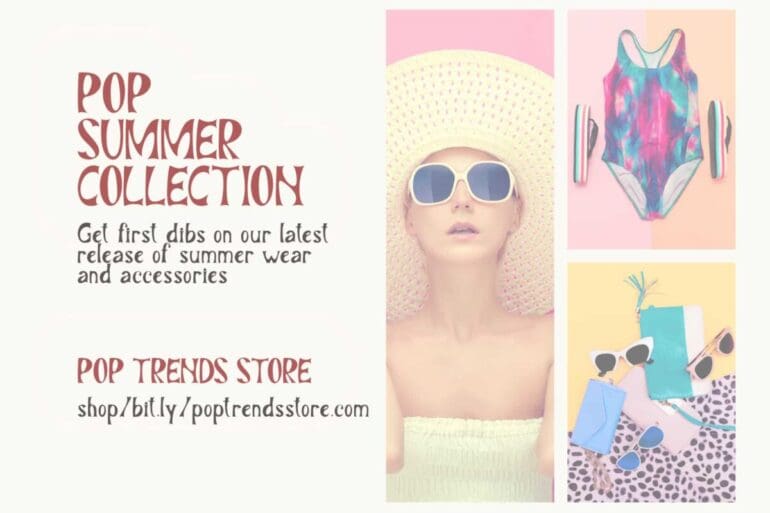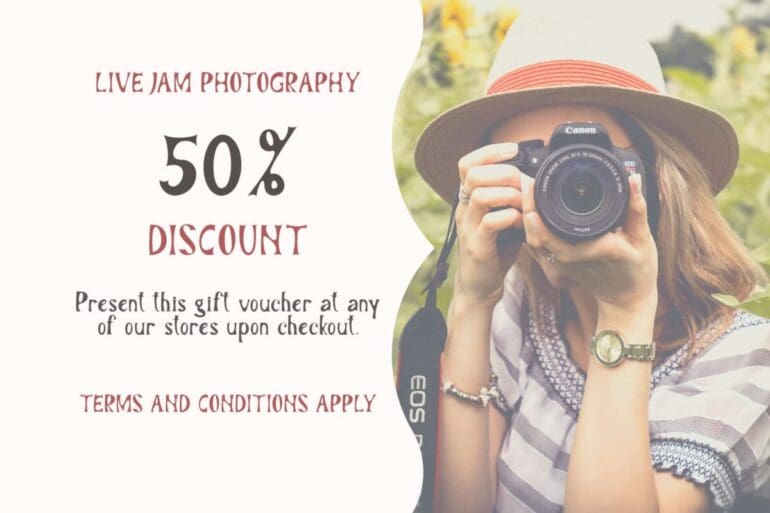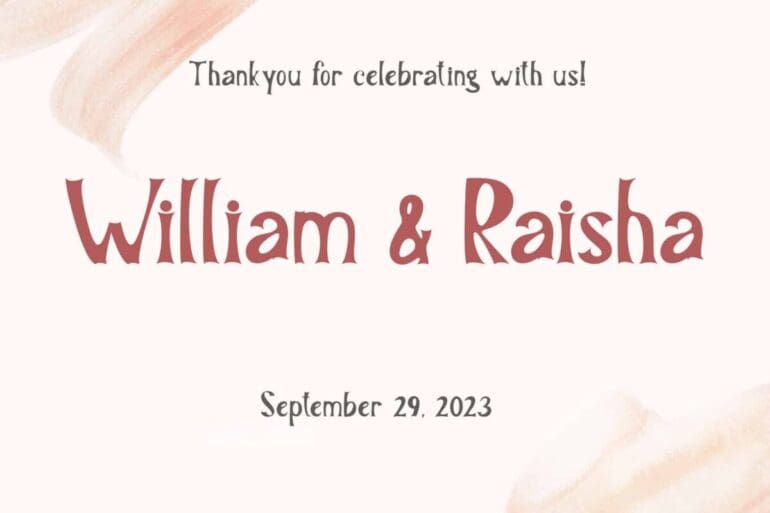
Melasthi Font
Melasthi is a modern and elegant Display Font. Incredibly versatile, this font fits a wide pool of designs, elevating them to the highest levels. Add this font to your favorite creative ideas and notice how it makes them come alive!